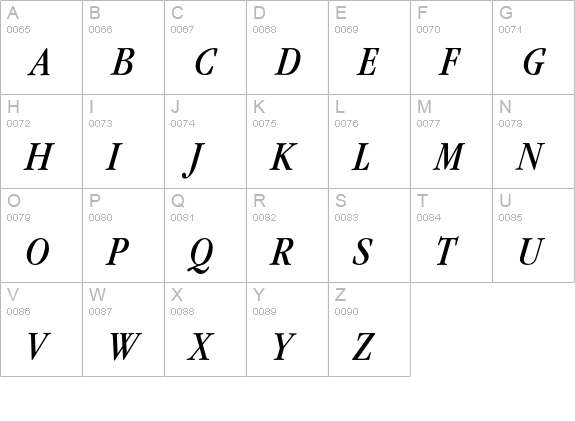
GaramondEF-BookCondensItalic Font Details
GaramondEF-BookCondensItalic font is a stunning and versatile typeface that effortlessly combines elegance and readability. Its condensed and italic design adds a touch of sophistication to any project, making it perfect for both professional and creative endeavors. This font features the timeless beauty of the Garamond typeface with a condensed twist, allowing it to fit more text into limited space without sacrificing legibility. The italicized slant adds a sense of dynamism and flair to your text, making it visually engaging and captivating. GaramondEF-BookCondensItalic font is meticulously crafted with meticulous attention to detail, ensuring each character is well-balanced and harmonious. The subtle curves and delicate serifs lend a sense of refinement, making it an excellent choice for branding, logo design, book covers, invitations, and much more. One of the most remarkable aspects of this font is that it is freely available to download at FontsMarket.com. This means that you can easily access and use GaramondEF-BookCondensItalic to elevate your projects without any cost. Whether you are a professional designer or a hobbyist, this font offers a high-quality and cost-effective solution to enhance your typographic creations. With GaramondEF-BookCondensItalic font, you can effortlessly convey a sense of elegance and professionalism while maintaining readability and visual appeal. Its versatility and timeless design make it a must-have for any designer seeking to add a touch of class to their work. Download it now from FontsMarket.com and unlock the potential of this exceptional font.